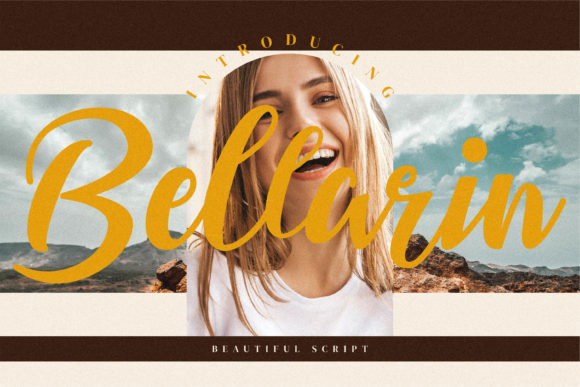
Unleash the Alluring Charm of Bellarin: A Script FontSymphony for Visual Storytellers
In a world saturated with digital noise, visual storytelling has emerged as a beacon of clarity and connection. Fonts, the building blocks of visual narratives, hold immense power to evoke emotions, convey messages, and leave lasting impressions. Among this symphony of fonts, Bellarin, a flowing and modern script font, stands out as a masterpiece of elegance and versatility.
Picture this: a social media post that captures your audience's attention with its captivating curves and dynamic strokes. A website header that exudes sophistication and invites exploration. A print advertisement that whispers sweet nothings to the reader's soul. With Bellarin, your visual stories will transcend the ordinary and resonate with audiences on a profound level.
Bellarin's beauty lies in its perfect balance between thin and thick strokes, creating a visual harmony that captivates the eyes. Its meticulously crafted glyphs and swashes add an enchanting touch of playfulness and intricacy, transforming your designs into works of art.
Embrace the Power of Emotional Storytelling:
With Bellarin, you're not just downloading a font; you're embarking on a journey of emotional connection. This font has the uncanny ability to evoke a wide range of emotions, from joy and excitement to elegance and nostalgia.
Create social media posts that ignite conversations and leave your audience craving more. Design logos that exude confidence and professionalism, leaving a lasting impression on potential customers. Craft wedding invitations that capture the essence of love and commitment, cherished forever by the happy couple.
Bellarin: Not Just a Font, but a Storyteller's Toolkit:
Bellarin is more than just a font; it's a storyteller's toolkit that empowers you to craft visual narratives that resonate with audiences. Its PUA encoding ensures effortless access to all glyphs and swashes, giving you the freedom to explore endless creative possibilities.
Whether you're a seasoned designer or just starting, Bellarin is your perfect companion. Its user-friendly nature makes it a joy to work with, allowing you to focus on what truly matters: crafting visual stories that captivate and inspire.